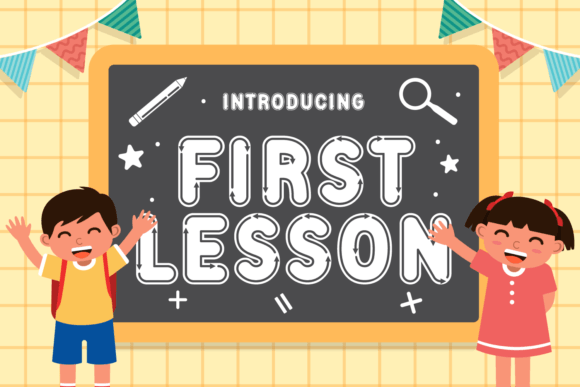
Discover the Joy of Creating with First Lesson Font
Have you ever stared at a blank canvas, waiting for inspiration to strike? You know that moment when everything comes together, and your imagination runs wild? For designers, this is often the spark that ignites a new project, and the right font can be the key to unlocking that creative magic.
Enter the First Lesson Font, a delightful display font designed to bring a touch of joy to your designs. Whether you’re creating cartoon-inspired graphics, children’s games, or simply looking to add a playful twist to your branding, this font is the perfect companion. With its friendly and approachable vibe, First Lesson Font is an invaluable tool for designers looking to infuse their work with a sense of whimsy and fun.
Key Features of First Lesson Font
- Font Family: First Lesson Font is a sans-serif font family designed for educational purposes.
- Character Set: Includes a wide range of characters, including uppercase and lowercase letters, numbers, punctuation marks, and mathematical symbols.
- Font Size and Resolution: Designed to be highly legible at various font sizes and resolutions, making it suitable for use in educational materials and presentations.
- Unique Characteristics: First Lesson Font features a clean and modern design, with clear distinctions between letters and numbers, making it easier for students to read and understand.
Designer Review: First Lesson Font
Overall, I’m quite impressed with the First Lesson Font. The font has a unique charm that’s perfect for educational materials, children’s books, and other related projects. ✨
The font’s friendly and approachable design makes it an excellent choice for conveying complex information in an engaging way. The font’s readability is also top-notch, making it easy to scan and understand even for young readers.
Here are some of the features that I particularly enjoy about the First Lesson Font:
- Unique and memorable design that stands out from the crowd
- Excellent readability, making it perfect for educational materials
- Works well in both digital and print formats
- ⚠️ Limited language support: The font may not be suitable for languages that require a wide range of characters
- ⚠️ May not be suitable for formal or professional projects: The font’s playful design may not be suitable for serious or formal content
Overall, I would highly recommend the First Lesson Font for projects that require a friendly and approachable design. Just be sure to consider the limitations mentioned above and use it in the right context.
For optimal results, use First Lesson Font in combination with a clean and simple design. This font is ideal for educational materials, such as lesson plans, worksheets, and presentations. It’s also great for creating engaging headings and titles.
Experiment with different font sizes and styles to create visual hierarchy and emphasize important information.
Alternatives to First Lesson Font
Lato is a modern sans-serif font designed for digital use. It is highly legible and suitable for body text, titles, and headings. Lato is a versatile font that works well in various contexts, from websites to print materials. Compared to First Lesson Font, Lato has a more modern and sleek appearance, making it a popular choice for designers.
Open Sans is a clean and friendly sans-serif font designed for digital use. It is highly legible and suitable for body text, titles, and headings. Open Sans is a popular choice for designers due to its versatility and readability. Compared to First Lesson Font, Open Sans has a more neutral and modern appearance, making it suitable for a wide range of design projects.
Merriweather is a classic serif font designed for print use. It is highly legible and suitable for body text and titles. Merriweather has a traditional and elegant appearance, making it a popular choice for designers who want to create a sophisticated and timeless look. Compared to First Lesson Font, Merriweather has a more formal and traditional appearance, making it suitable for formal documents, books, and other print materials.
The First Lesson Font is designed to be highly legible at a wide range of font sizes. However, for optimal readability, we recommend using font sizes between 12pt and 24pt. Line spacing should be set to at least 1.5 times the font size to ensure clear readability.